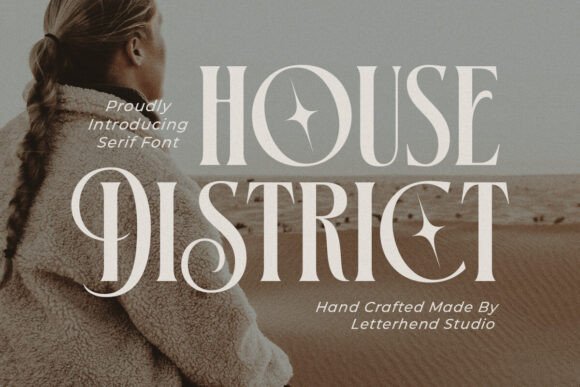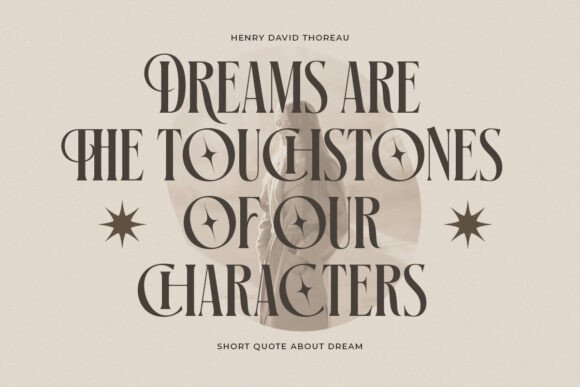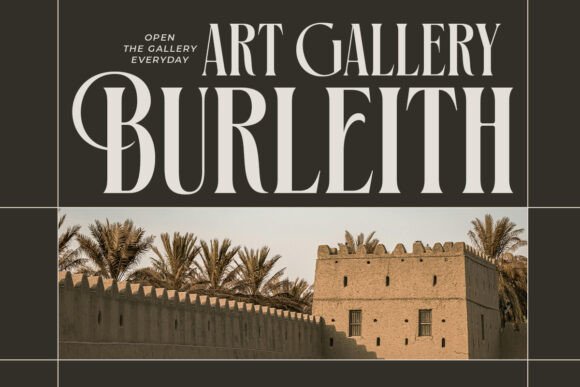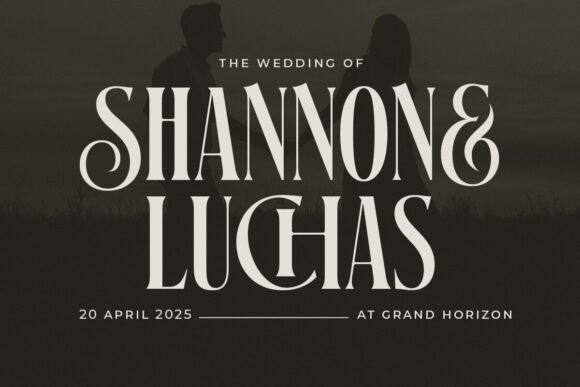
House District Font
About the House District Font
Meet House District Font, a stunning font that brings a touch of elegance and professionalism to any design. Introducing House District, a crafted serif font that blends vintage elegance with contemporary sophistication. Its refined letterforms feature smooth curves, stylish swashes, and striking star-like embellishments, evoking a sense of luxury and high-end craftsmanship.
House District thrives in applications requiring a touch of vintage glamour. It excels in headlines, logos, and short-form text for branding projects, packaging design, or high-end invitations. The swashes add a distinctive flair, ideal for emphasizing key words or creating memorable visual identities. Avoid using it for large blocks of body text or UI elements; its ornate details can hinder readability in extended passages.
Pairing House District with a clean sans-serif like Montserrat or a geometric sans-serif like Futura creates a sophisticated contrast, balancing the serif’s elegance with modern simplicity. For a warmer feel, consider pairing it with a script font like Great Vibes, but use it sparingly to avoid overwhelming the design.
The overall personality of House District is sophisticated and refined, yet subtly playful due to its decorative elements. It’s best suited for brands conveying luxury, craftsmanship, or a vintage-inspired aesthetic.
House District Font Example